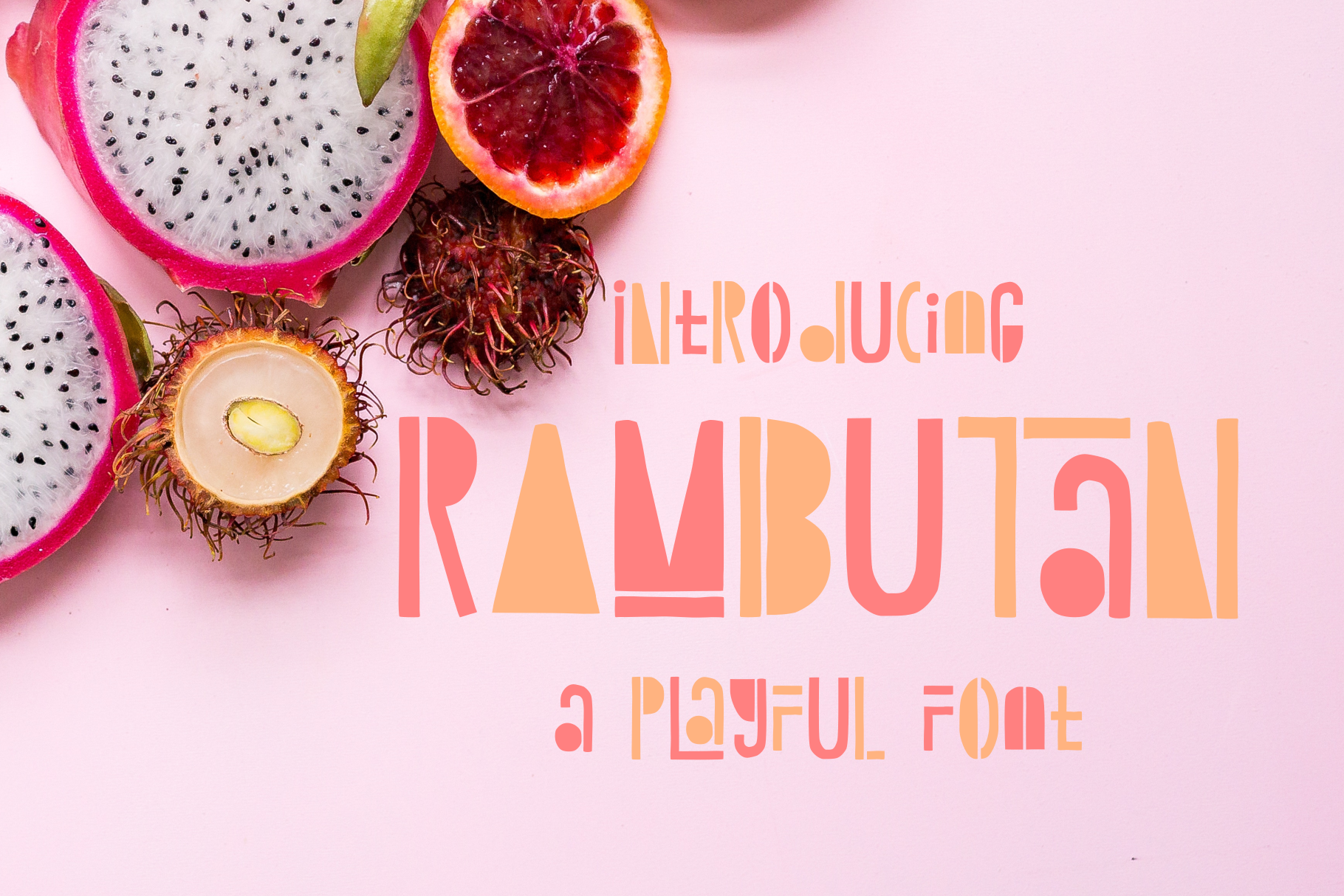
Rambutan Playful Font
The Rambutan is a playful font. Mix and match the uppercase and lowercase letters to create an unique design, every time you use it. The Rambutan is perfect for logos, quotes, clothing, book covers and more!